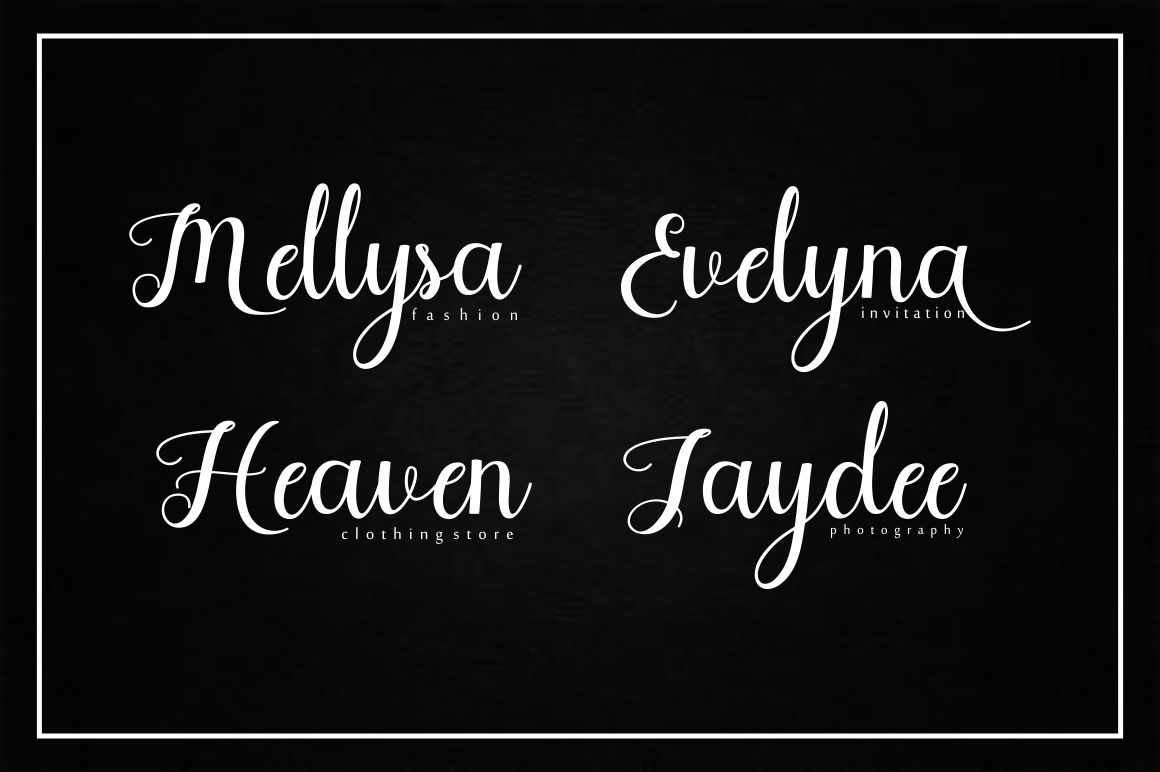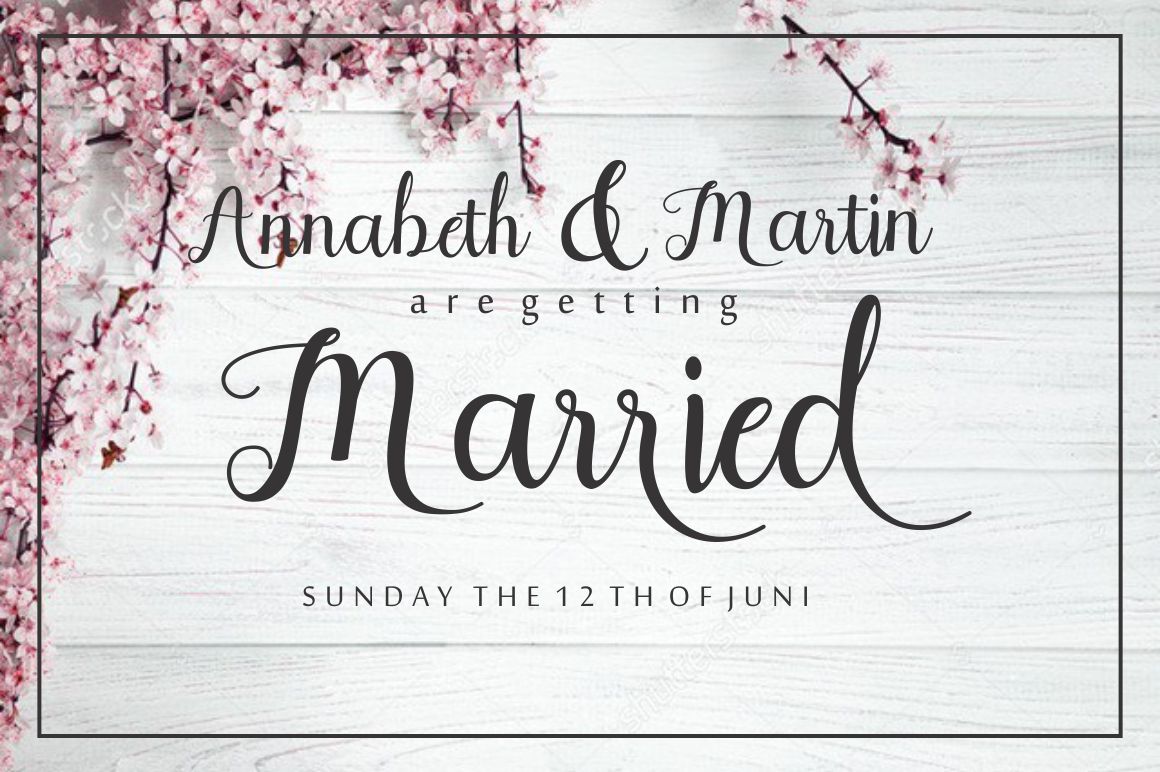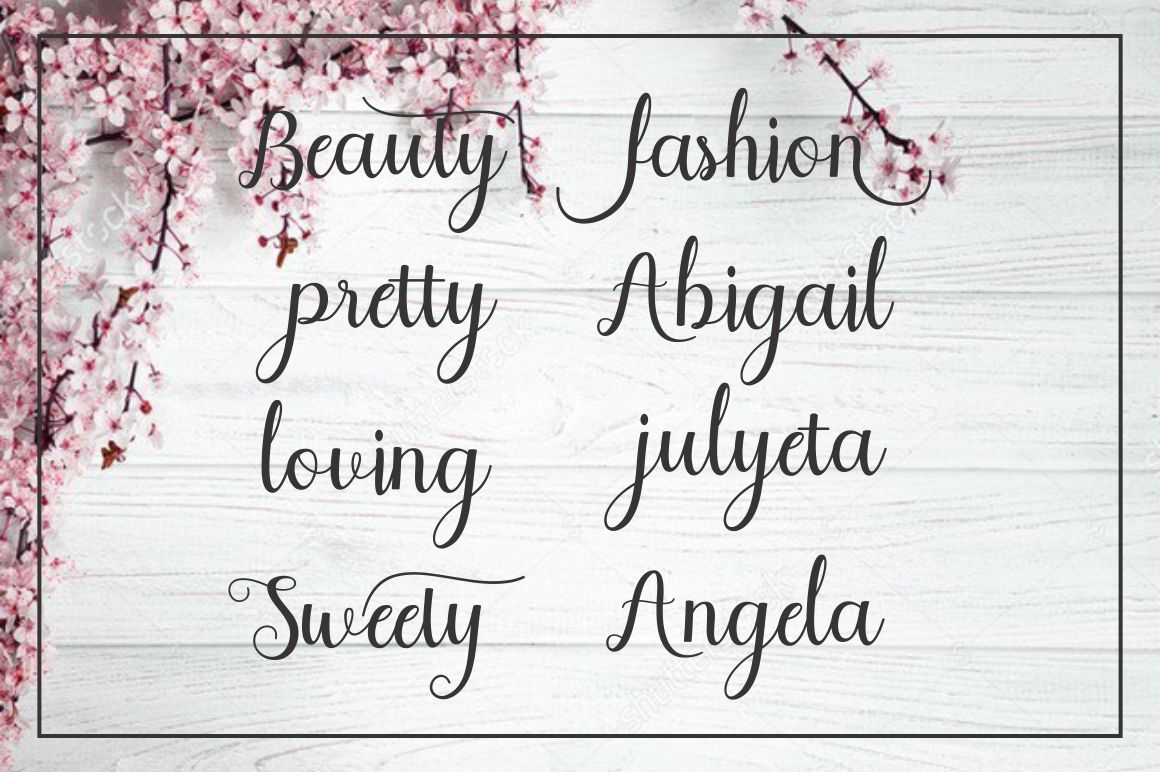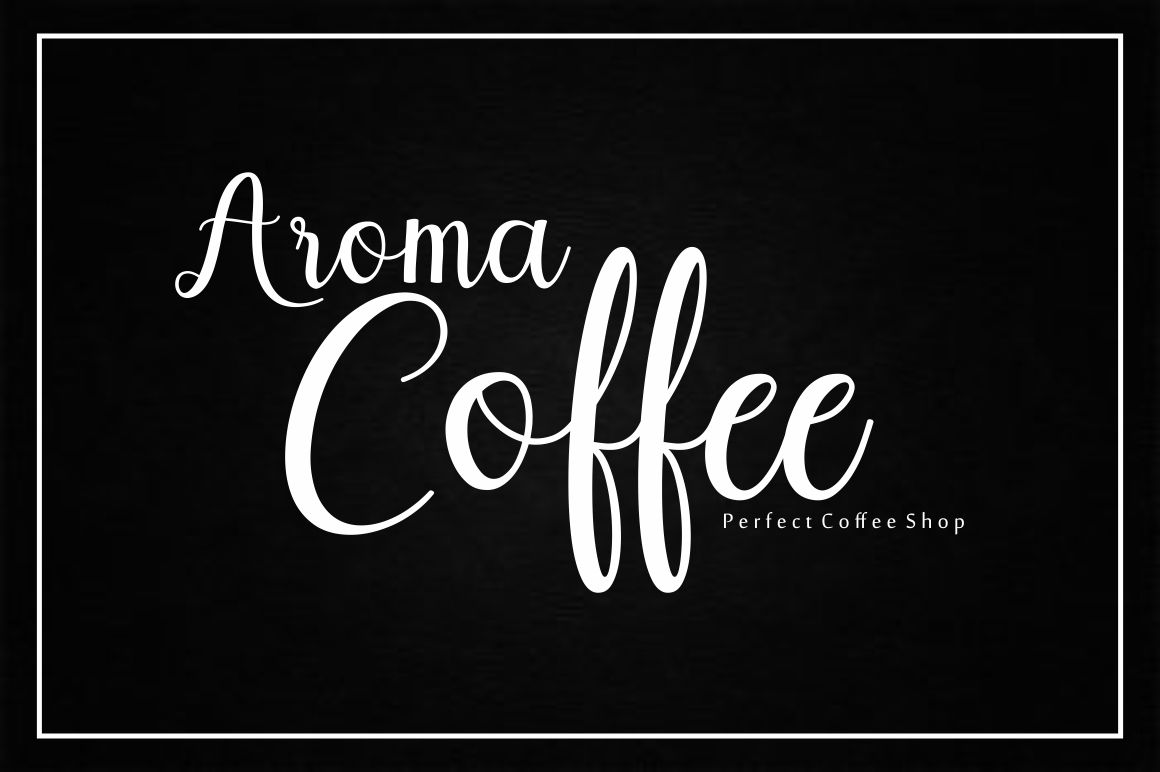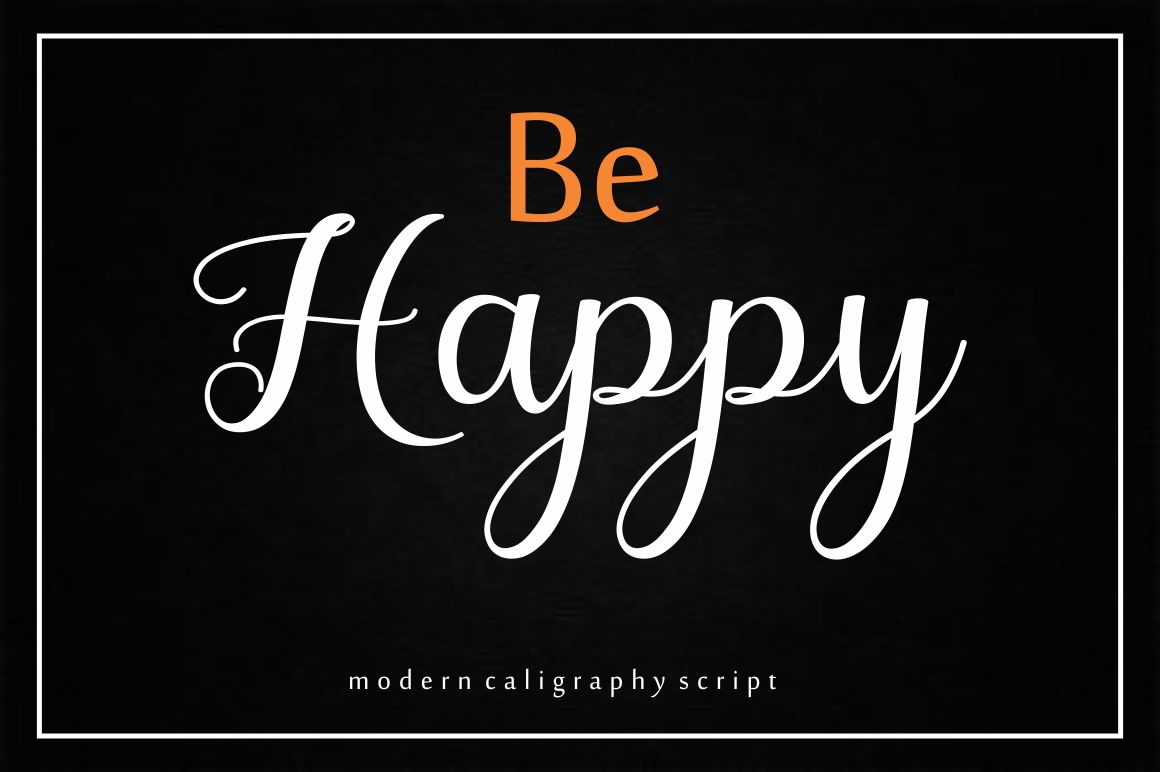
Sweety Font
About Sweety Font
Sweety is a gorgeous script font, suitable for a wide range of uses in displays and headlines. This swashy calligraphy script is modern, and can add a ton of elegance to your projects.